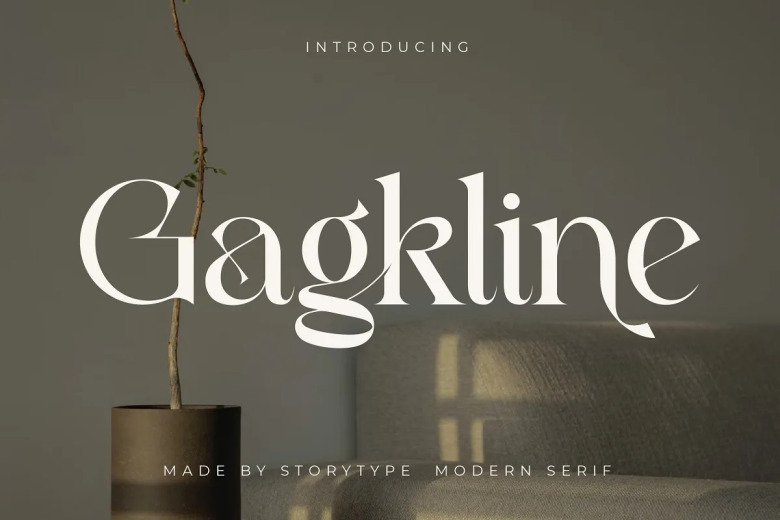
Gagkline Font
Gaglime is a modern and classical serif font that has its unique style & modern look. Use this wonderful typeface for your elegant & luxurious logo, book or movie title design.
Especially beautiful on a fashion brand, magazine text and content if you are developing in that market but also works well on clothes, letterings, quotes and so much more!
Gagkline Serif Font